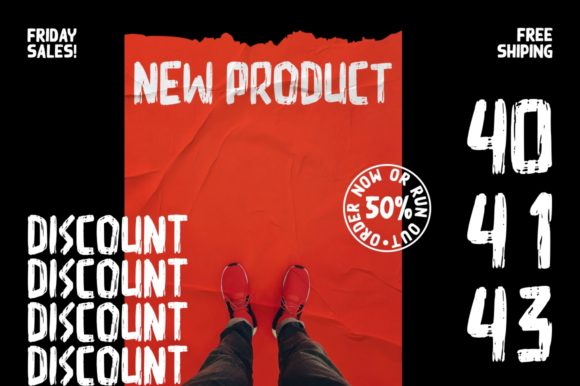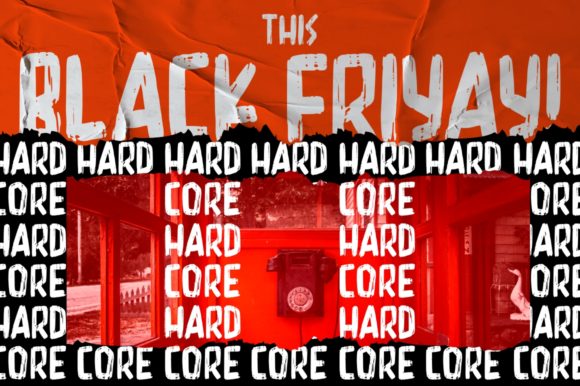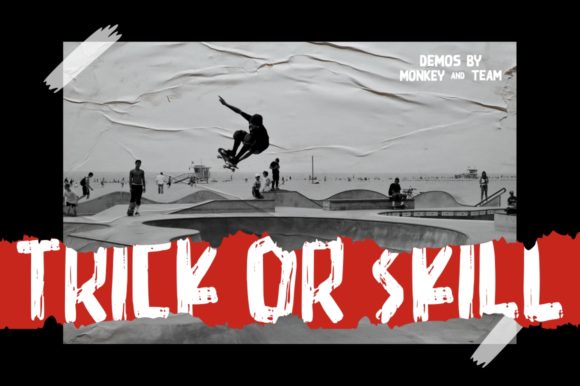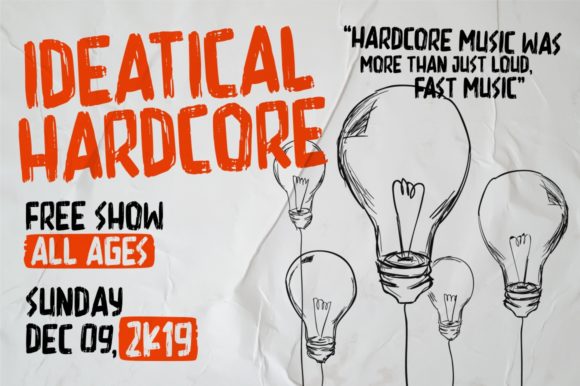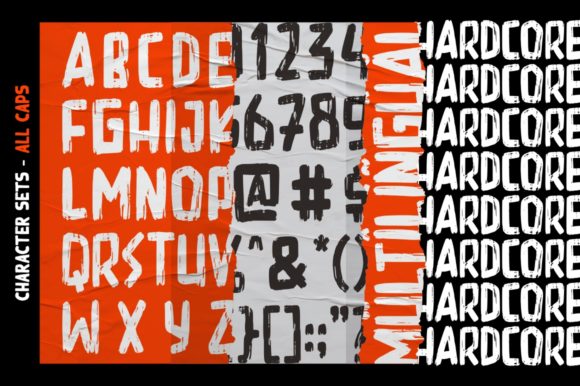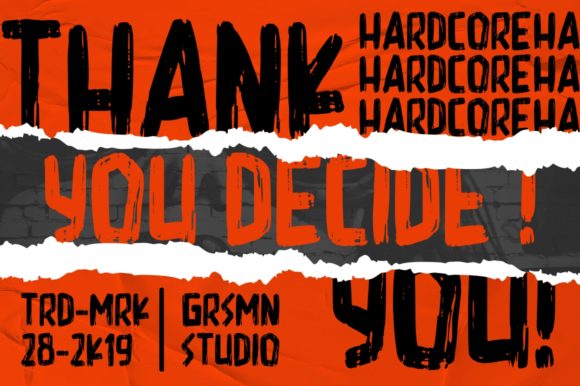
Unleash Your Creativity with Hardcore Font: The Ultimate Urban Display Font
Are you a designer, craftsperson, or simply a creative individual looking for a font that can add a touch of edginess to your projects? Look no further than Hardcore Font, an urban display font designed to make a statement. With its bold and rugged aesthetic, Hardcore Font is perfect for a wide range of applications, from social media posts and posters to advertising and product packaging.
What is Hardcore Font?
Hardcore Font is a carefully crafted urban display font that exudes a sense of grit and attitude. Its unique design features a blend of bold lines, sharp edges, and a distinctive texture that gives it a raw, unapologetic feel. Whether you’re looking to create eye-catching headlines, striking posters, or captivating social media posts, Hardcore Font is the perfect choice.
Key Features of Hardcore Font
- Urban aesthetic: Hardcore Font boasts a distinctly urban feel, making it perfect for designers and crafters who want to add a touch of edginess to their projects.
- Bold and rugged: With its bold lines and sharp edges, Hardcore Font is designed to make a statement and grab attention.
- Versatile: Hardcore Font can be used for a wide range of applications, from social media posts and posters to advertising and product packaging.
- Easy to read: Despite its bold aesthetic, Hardcore Font is surprisingly easy to read, making it perfect for headlines, titles, and short paragraphs of text.
Use Cases for Hardcore Font
Hardcore Font is an incredibly versatile font that can be used in a variety of contexts. Here are just a few examples of how you can use Hardcore Font to elevate your designs:
- Social media posts: Add a touch of edginess to your social media posts with Hardcore Font. Perfect for creating eye-catching headlines and attention-grabbing graphics.
- Posters and flyers: Create striking posters and flyers with Hardcore Font. Its bold aesthetic is sure to grab attention and leave a lasting impression.
- Advertising: Use Hardcore Font to create bold and attention-grabbing ad copy. Perfect for billboards, print ads, and digital campaigns.
- Product packaging: Add a touch of urban flair to your product packaging with Hardcore Font. Perfect for food, fashion, and lifestyle brands.
Tips for Using Hardcore Font
Here are a few tips for getting the most out of Hardcore Font:
- Use it boldly: Hardcore Font is designed to make a statement, so don’t be afraid to use it boldly. Experiment with different sizes, colors, and textures to create a truly eye-catching design.
- Pair it with contrasting fonts: For maximum impact, pair Hardcore Font with contrasting fonts that complement its bold aesthetic. Try pairing it with a clean, sans-serif font for a striking contrast.
- Experiment with colors: Hardcore Font looks great in a variety of colors, from bold brights to deep blacks. Experiment with different colors and textures to find the perfect look for your design.